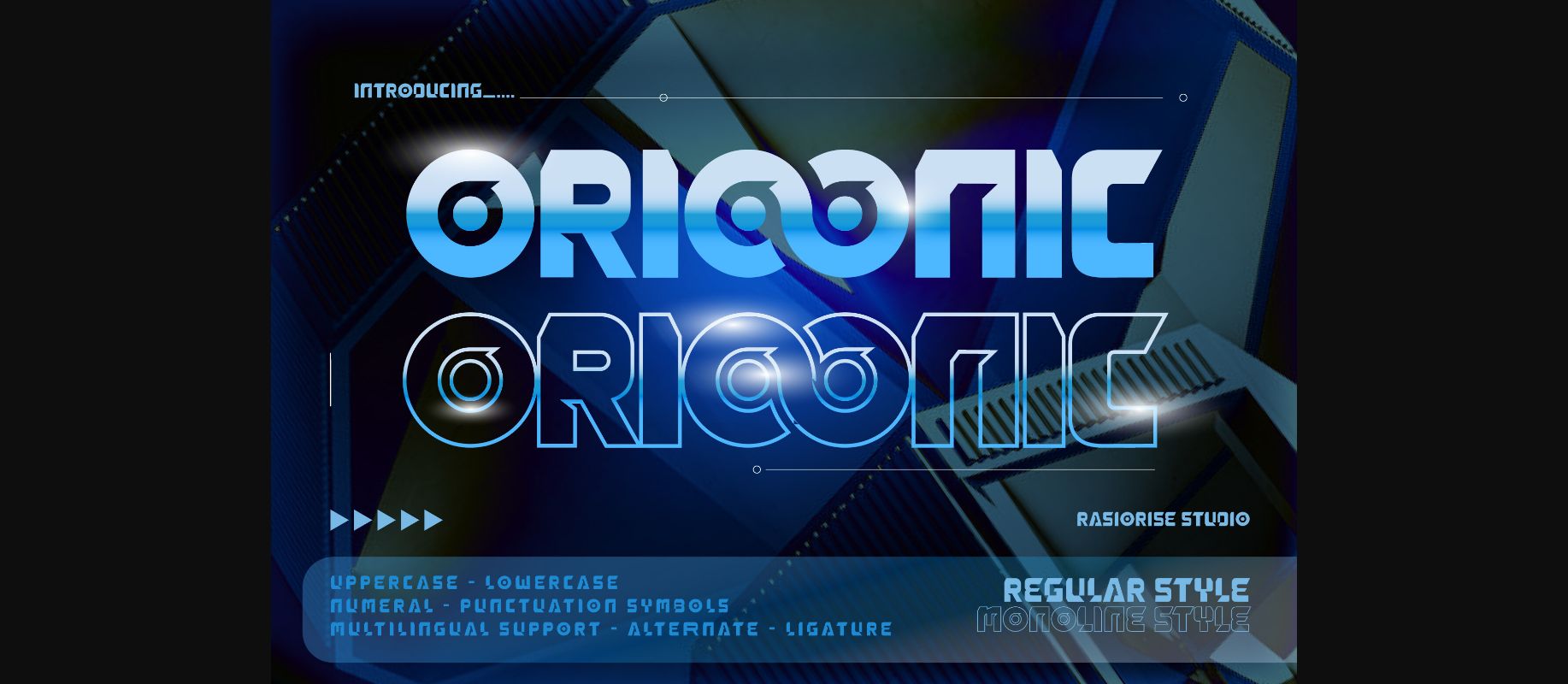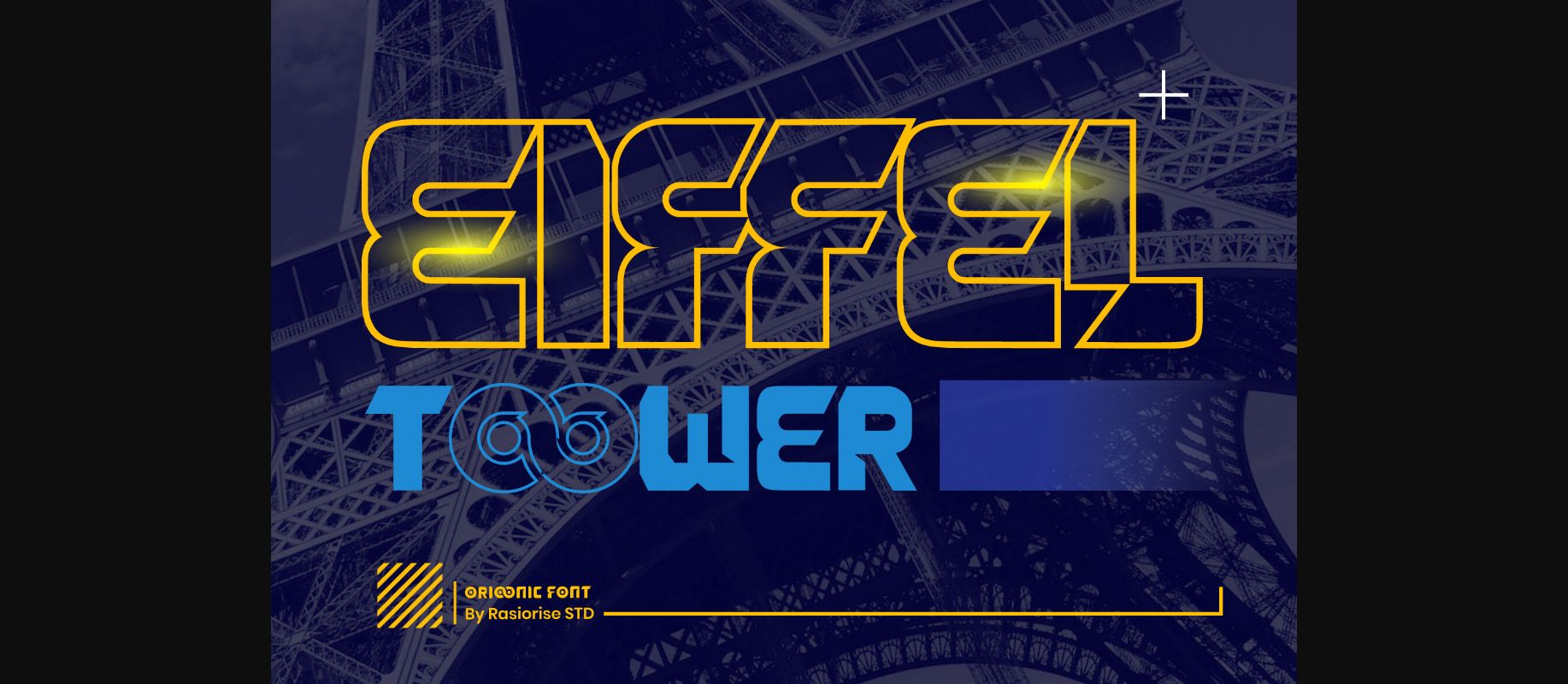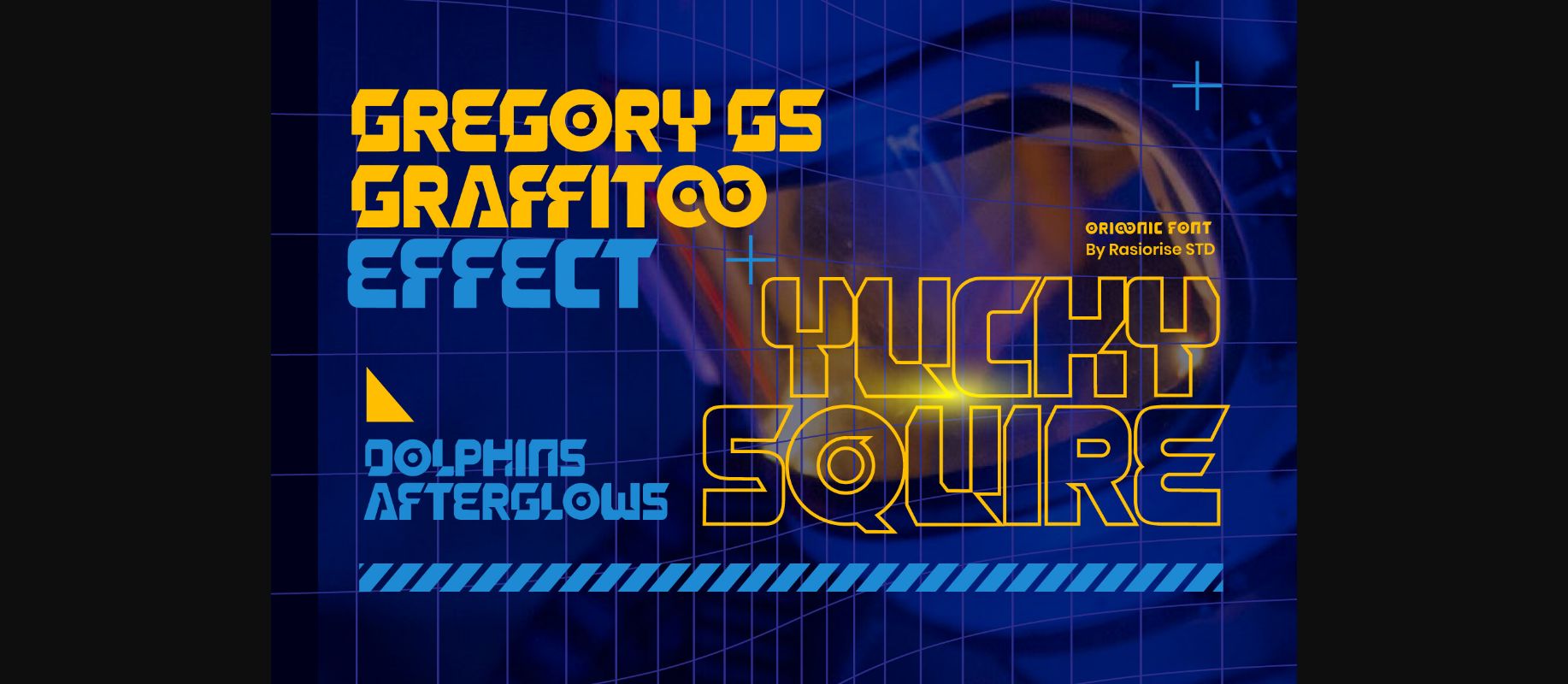
About Orioonic Font
Introducing Orioonic, a Futuristic Y2k decorative font. Orioonic has been released for those of you who are looking for a Y2K futuristic font. It is perfect for use on social media, posters, business cards and so much more.